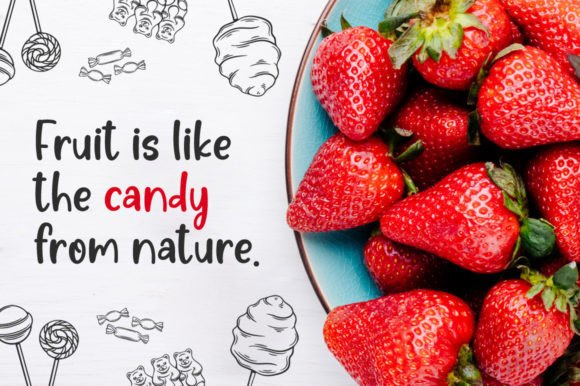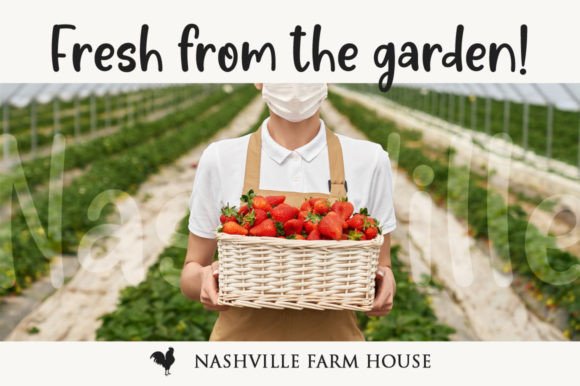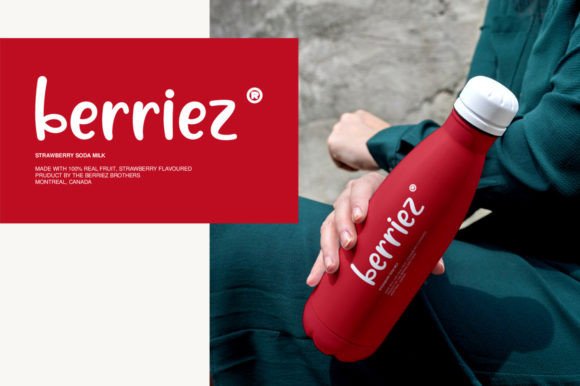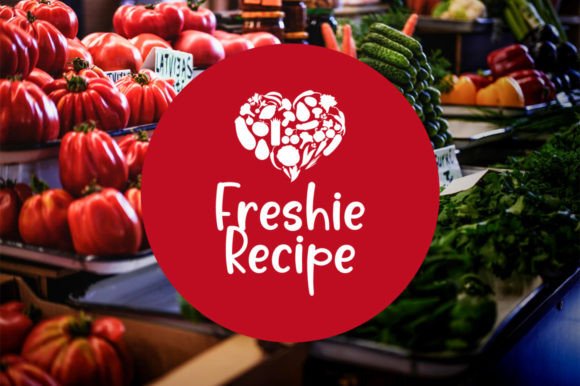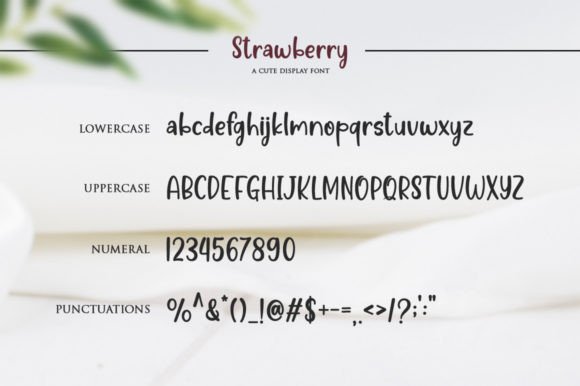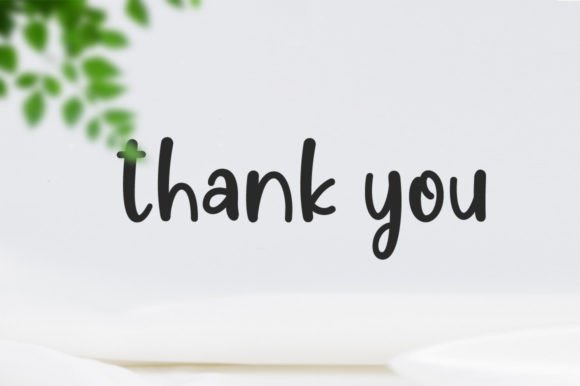
Strawberry Font
About Strawberry Font
“Strawberry” is a fun and smart-looking handwritten font that adds a touch of playfulness and style to your designs. This font is perfect for a wide range of design projects, including invitations, thank you cards, quotes, greeting cards, logos, business cards, and any other design that benefits from a customized touch.
The font’s handwritten style is characterized by its lively and engaging characters. It brings a sense of vibrancy and personality to your designs, making them visually appealing and memorable. “Strawberry” can enhance the overall aesthetics of your projects, making them stand out and leave a lasting impression.
In the world of design, fonts are essential for conveying mood, style, and visual identity. “Strawberry” excels in these aspects by offering a handwritten font that is both fun and visually captivating. Its aesthetics infuse your designs with a sense of playfulness and customization, making them engaging and distinctive.
In summary, “Strawberry” is more than just a font; it’s a fun and stylish design tool that can enhance your creative projects with its lively and smart-looking style. Whether you’re working on invitations, logos, or any design that benefits from a touch of customization and playfulness, “Strawberry” is the font that can help you craft designs that are visually appealing and full of character.